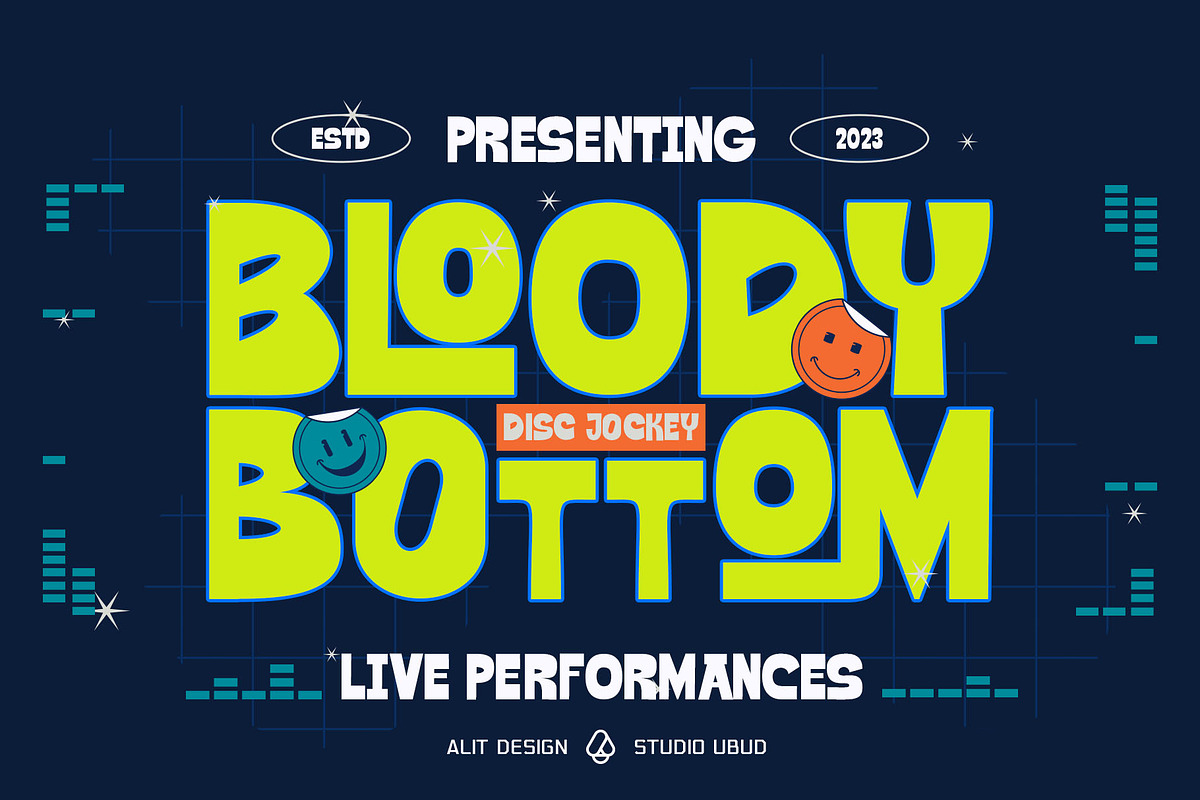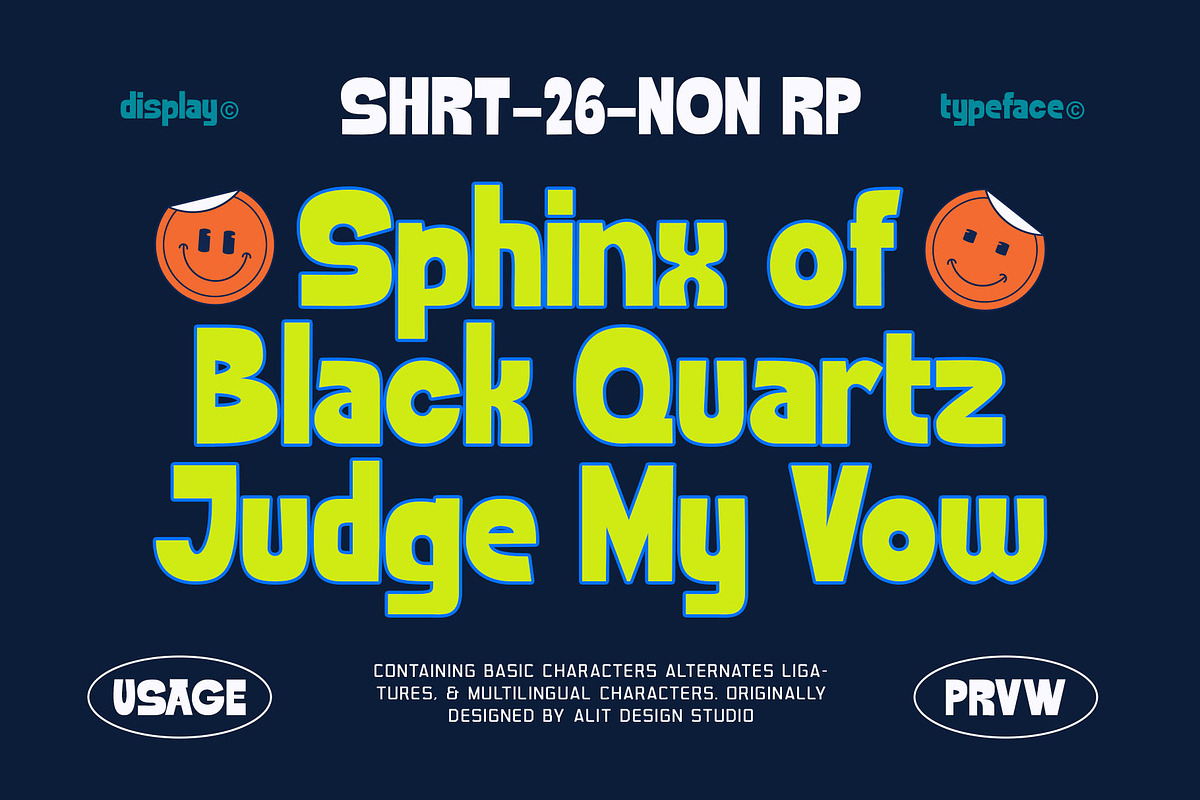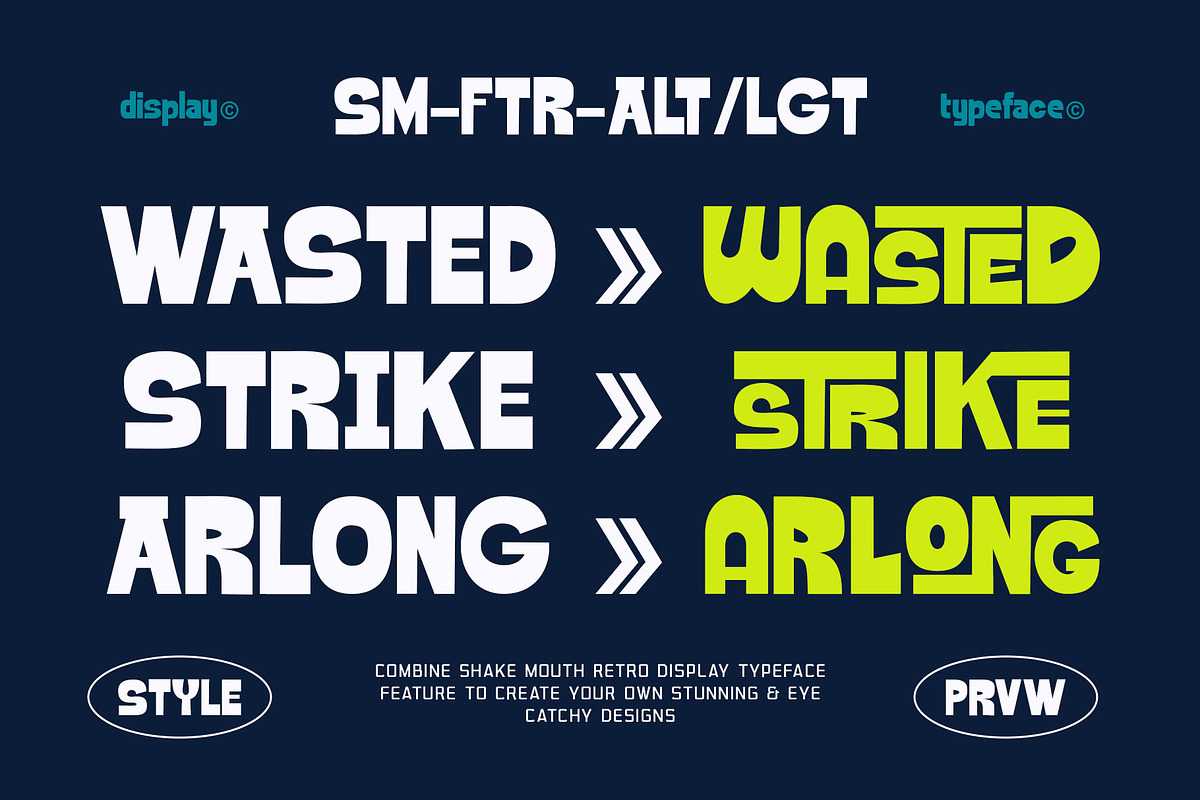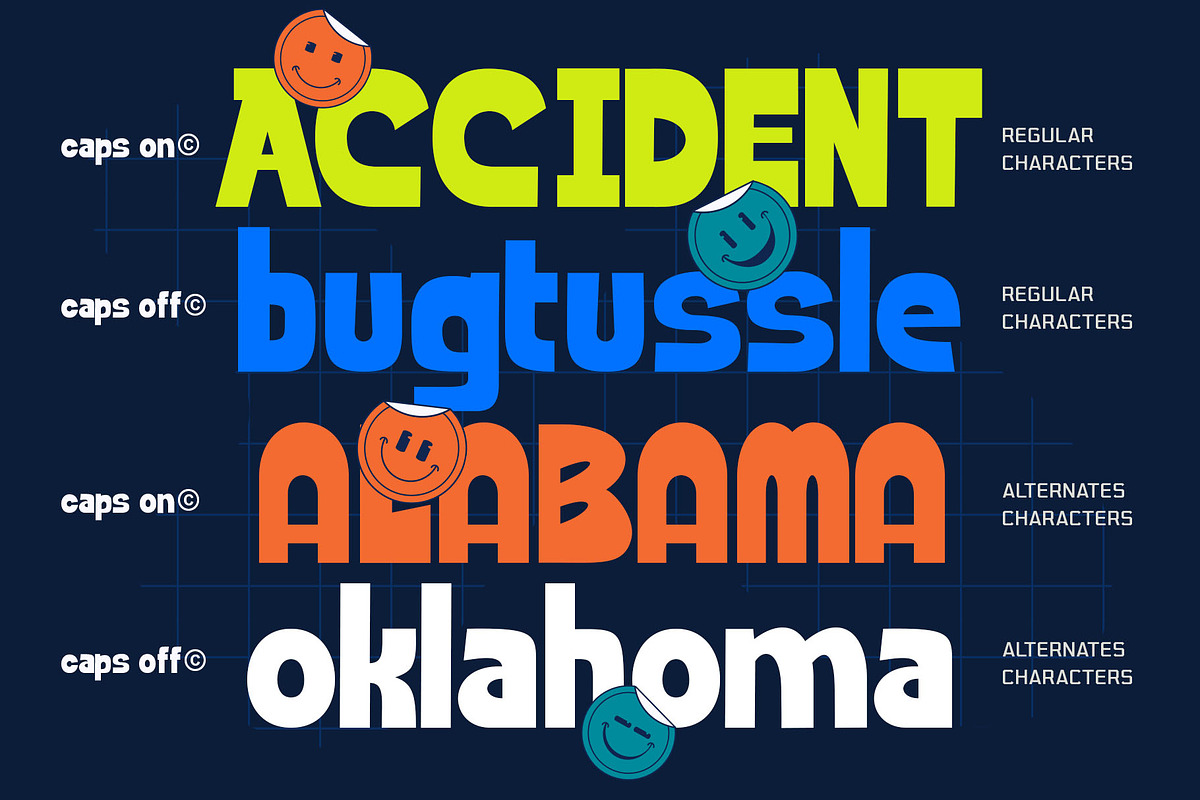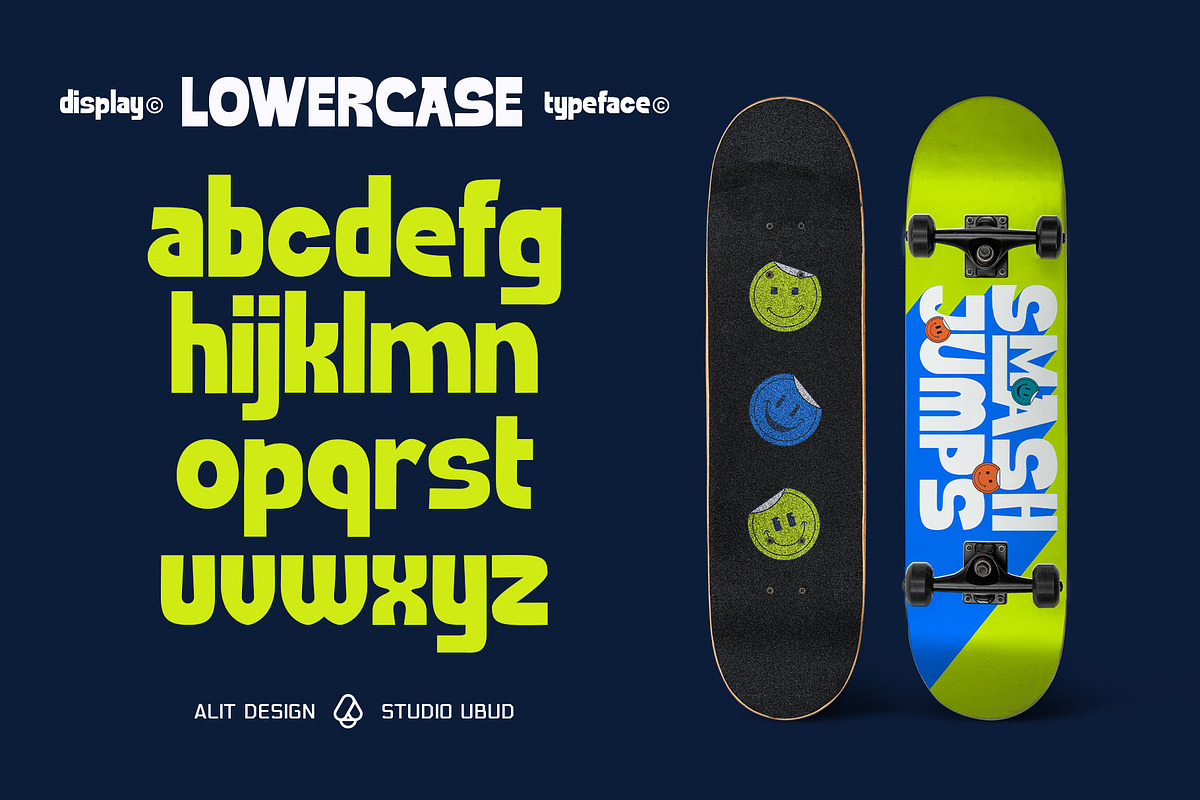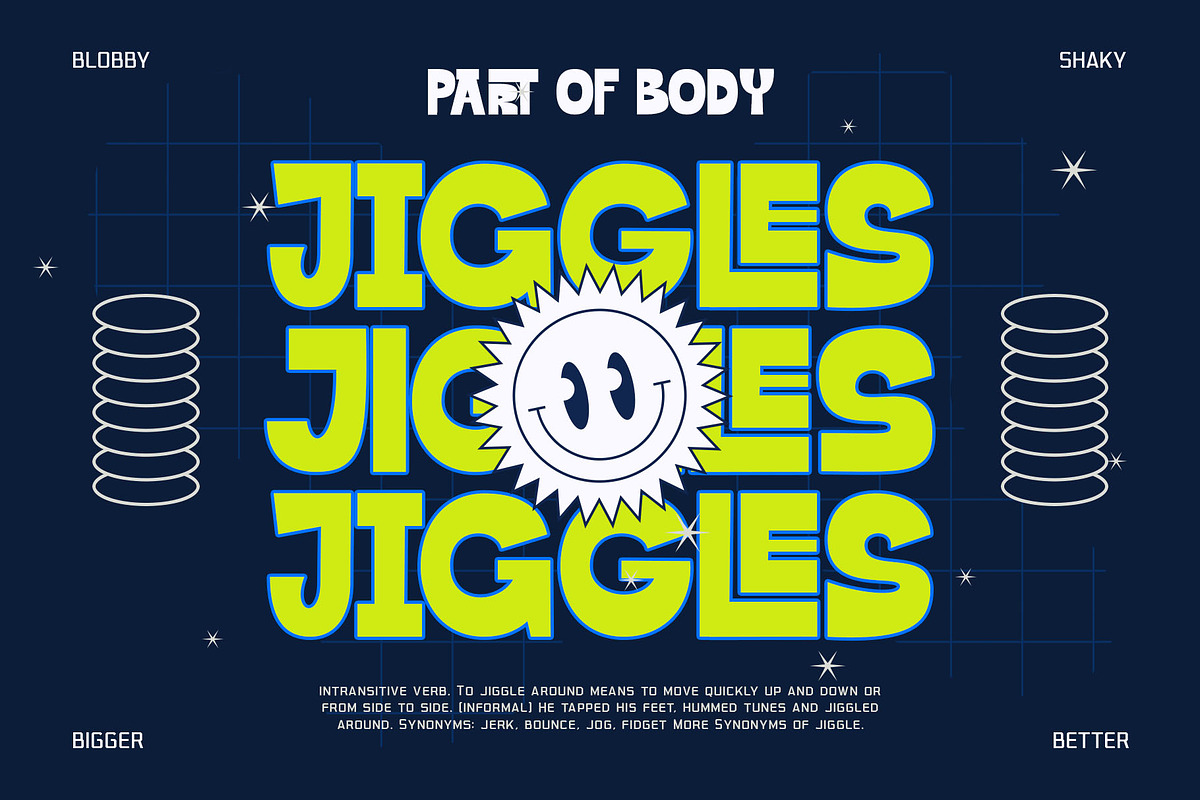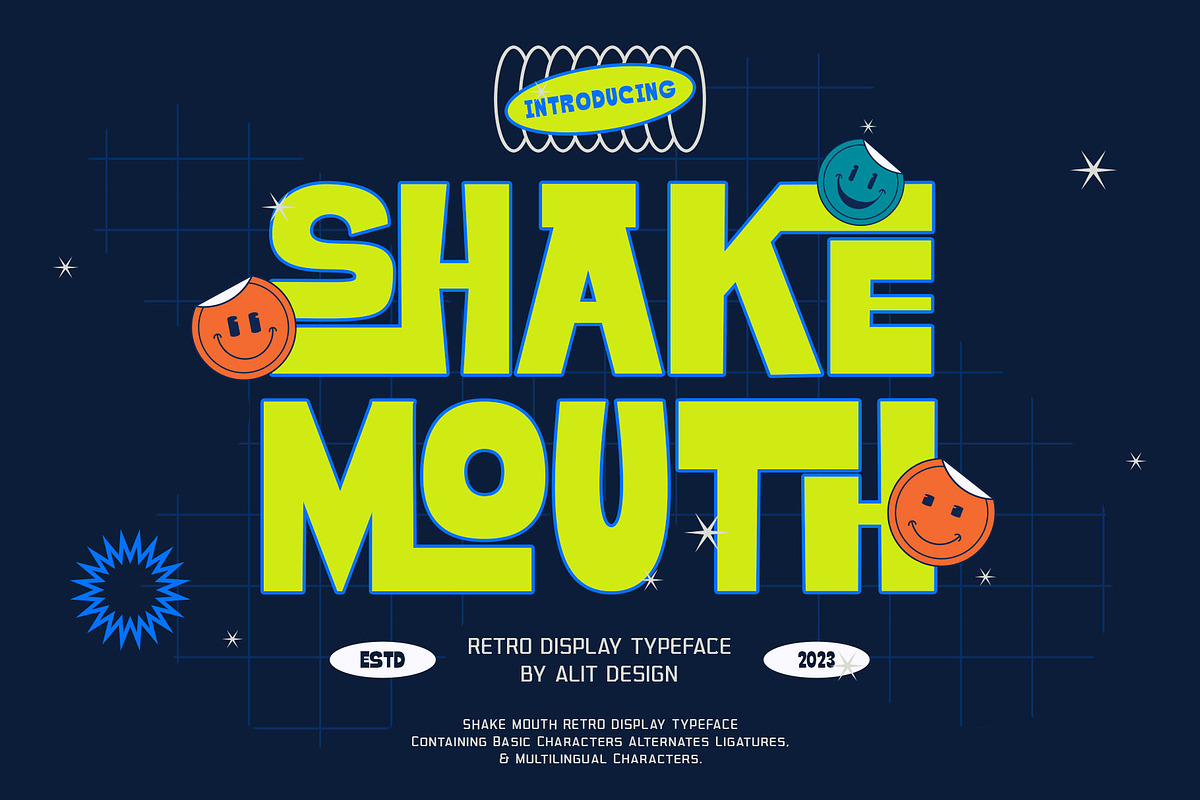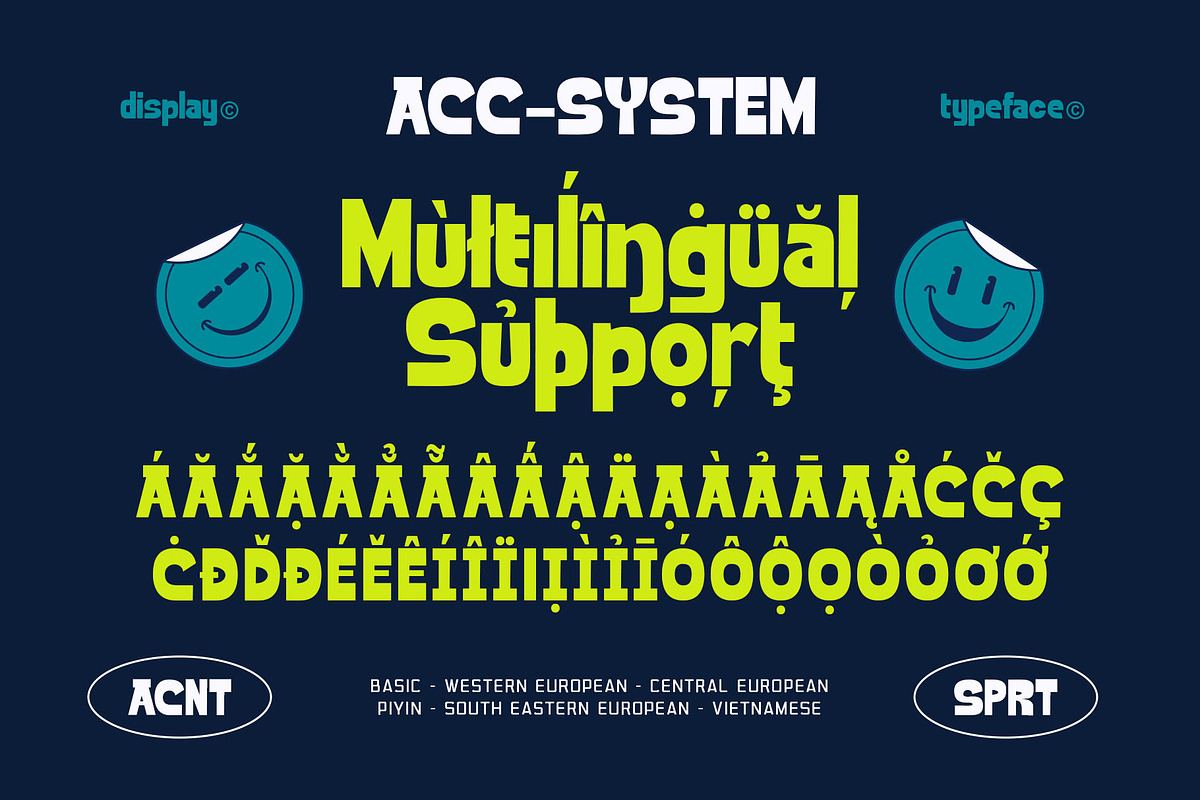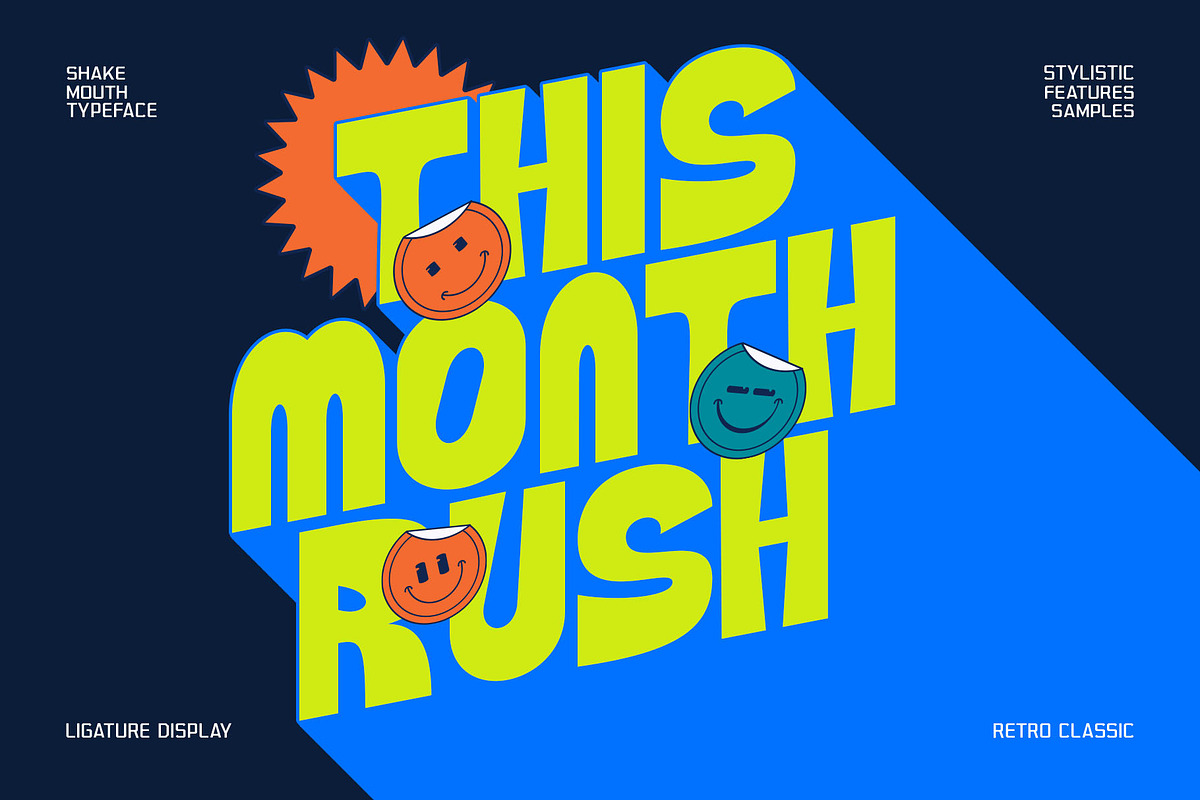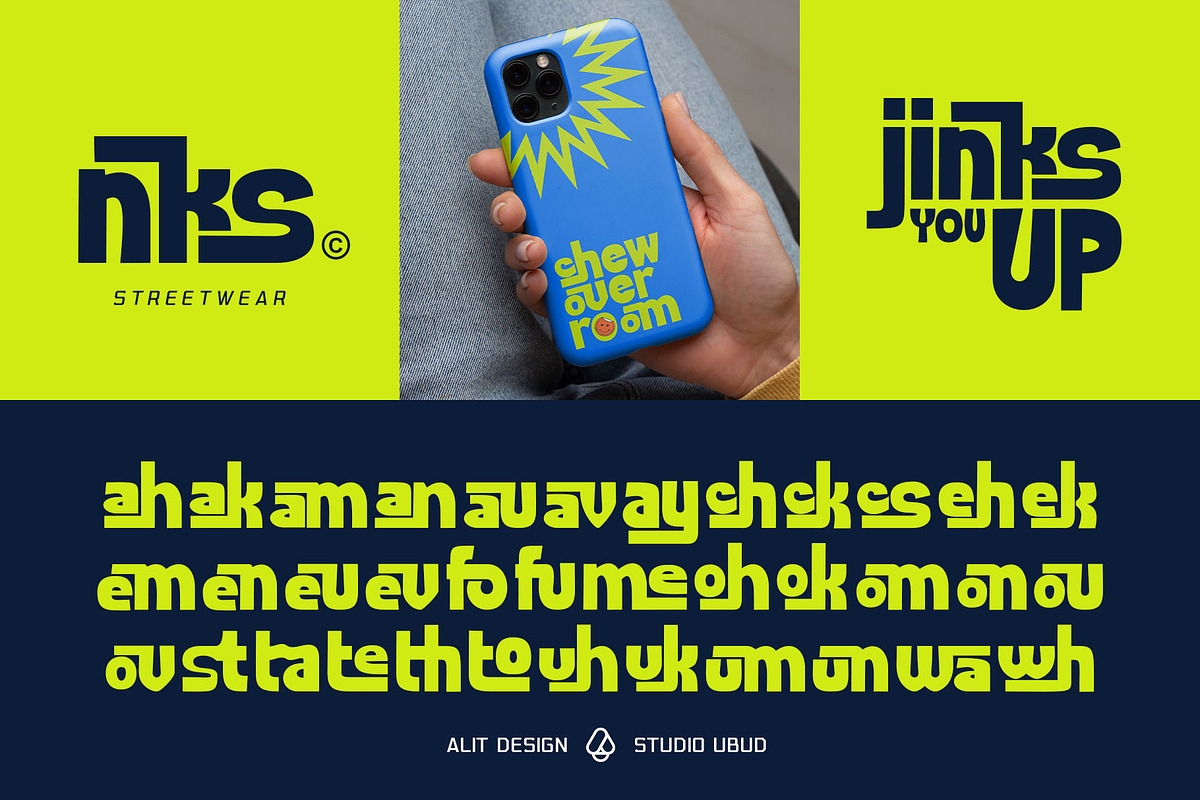
Shake Mouth Typeface
Introducing "Shake Mouth" - The Vintage Sans Serif Typeface Are you ready to add a touch of nostalgia and personality to your design projects? Look no further than "Shake Mouth," a stunning retro-style sans serif display font that brings a sense of timeless charm to your creative endeavors. With its unique design and a plethora of features, "Shake Mouth" is a must-have font for designers, typographers, and creatives alike.
Retro Style: "Shake Mouth" encapsulates the essence of the past, evoking a sense of nostalgia and authenticity. Its vintage design makes it perfect for retro-themed projects, branding, posters, and more.
Sans Serif Elegance: This font boasts a clean and elegant sans serif style, making it versatile and suitable for a wide range of design applications.
Ligatures and Alternatives: "Shake Mouth" goes above and beyond with its numerous ligatures and alternative characters, allowing you to create unique and customized typography that stands out.
Multilingual Support: With extensive multilingual support, "Shake Mouth" ensures that your message can be communicated effectively to audiences worldwide.
Extensive Character Set: "Shake Mouth" offers an impressive 625 character letters, ensuring that you have all the creative flexibility you need to make your designs truly exceptional.
Applications:
Branding: Create memorable and distinctive logos, packaging, and promotional materials.
Posters and Flyers: Capture attention with eye-catching headlines and text.
Editorial Design: Enhance your magazine layouts, book covers, and more with a touch of vintage flair.
Apparel Design: Craft unique and stylish apparel graphics and typography.
Web Design: Add character and charm to your website headers and banners.
"Shake Mouth" is the font that will transport your designs to a bygone era while maintaining a contemporary edge. Whether you're working on a retro project or looking to infuse your designs with a dash of character, "Shake Mouth" has got you covered.